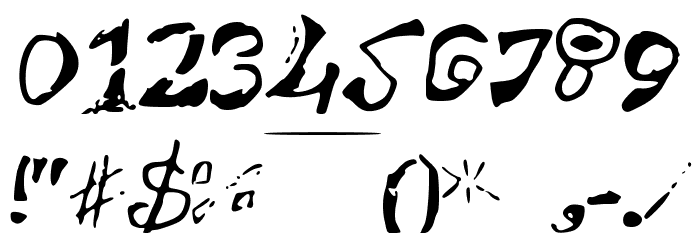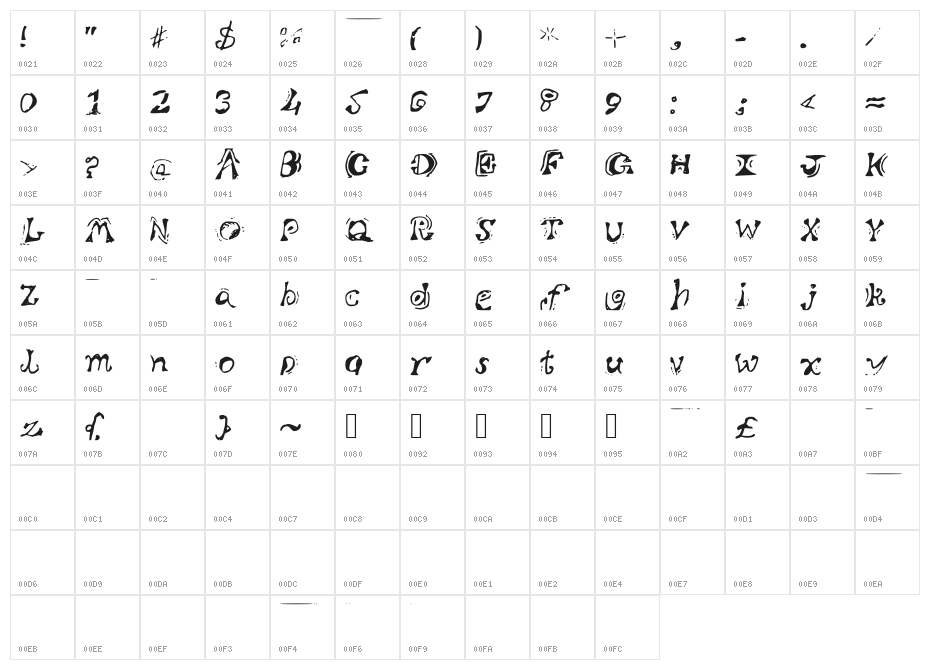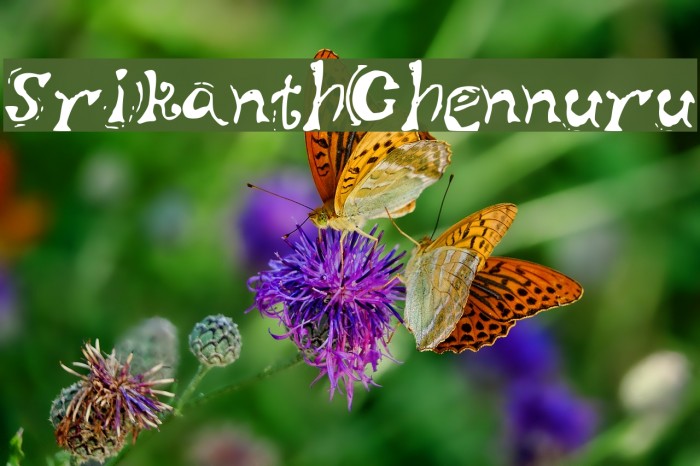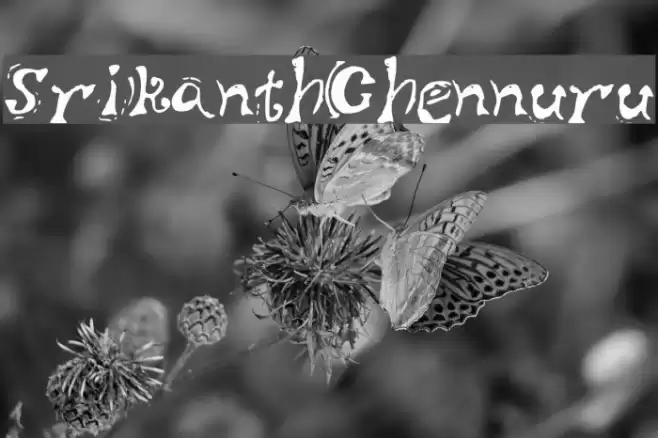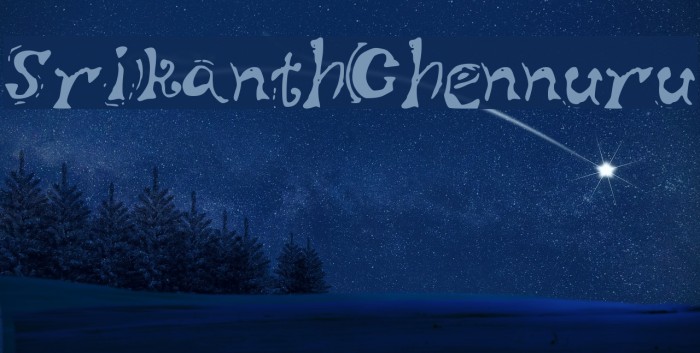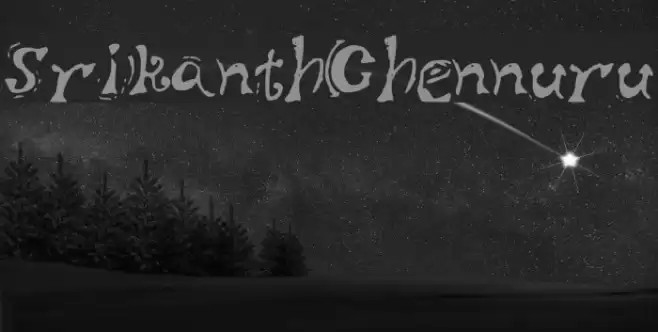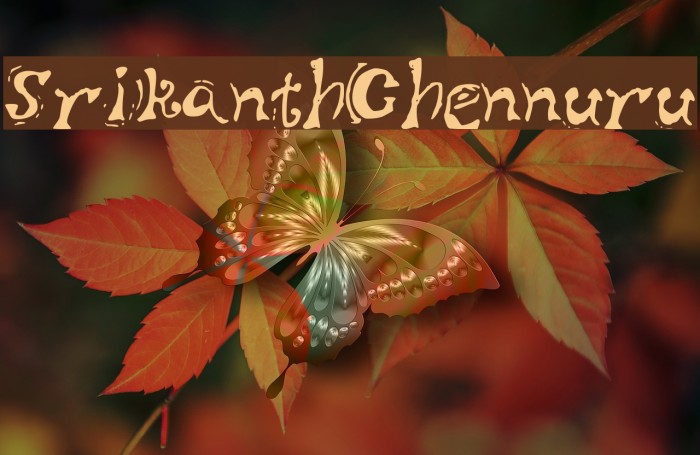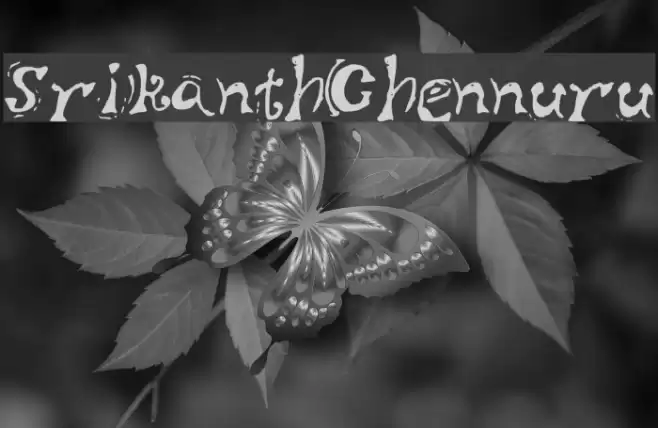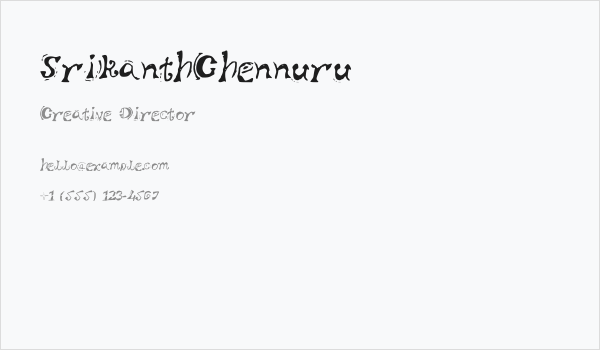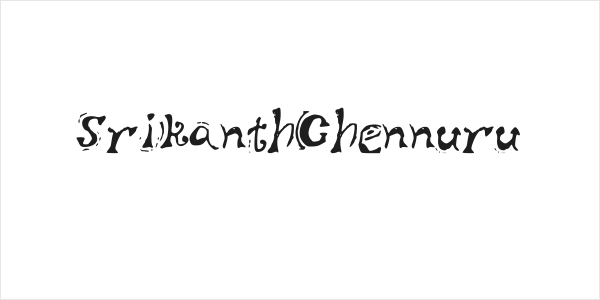
SrikanthChennuru Font
SrikanthChennuru Description
This font exhibits a highly decorative and artistic style, characterized by its bold and irregular strokes. The letters have a distressed, almost grunge-like appearance, with varying thickness and unique embellishments that give each character a distinct personality. The uppercase and lowercase letters maintain a consistent theme, with swirling elements and unexpected angles that add to the font's dynamic nature. The numbers and special characters follow suit, offering a cohesive yet unpredictable design. This font is visually striking and commands attention, making it suitable for creative and unconventional projects.